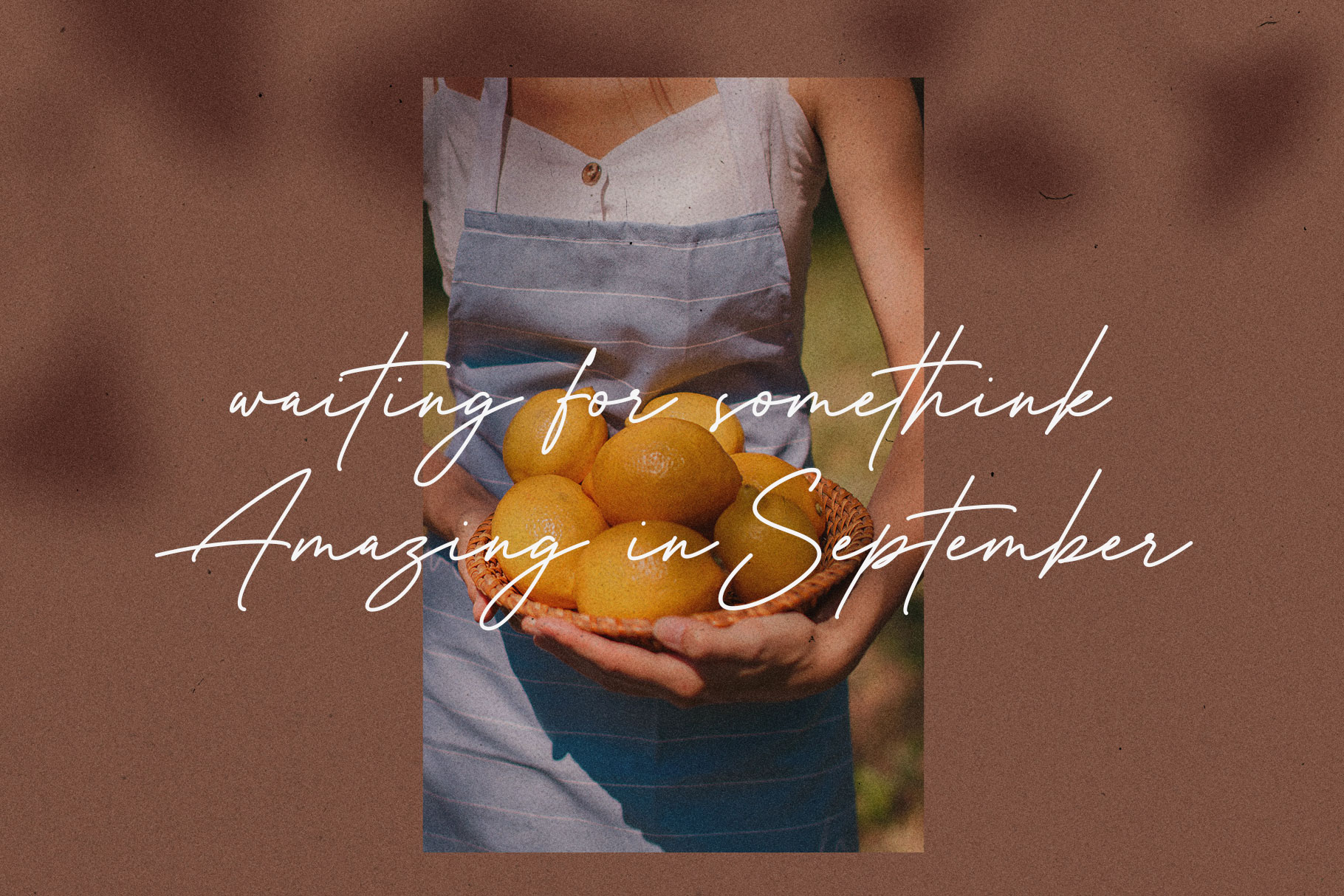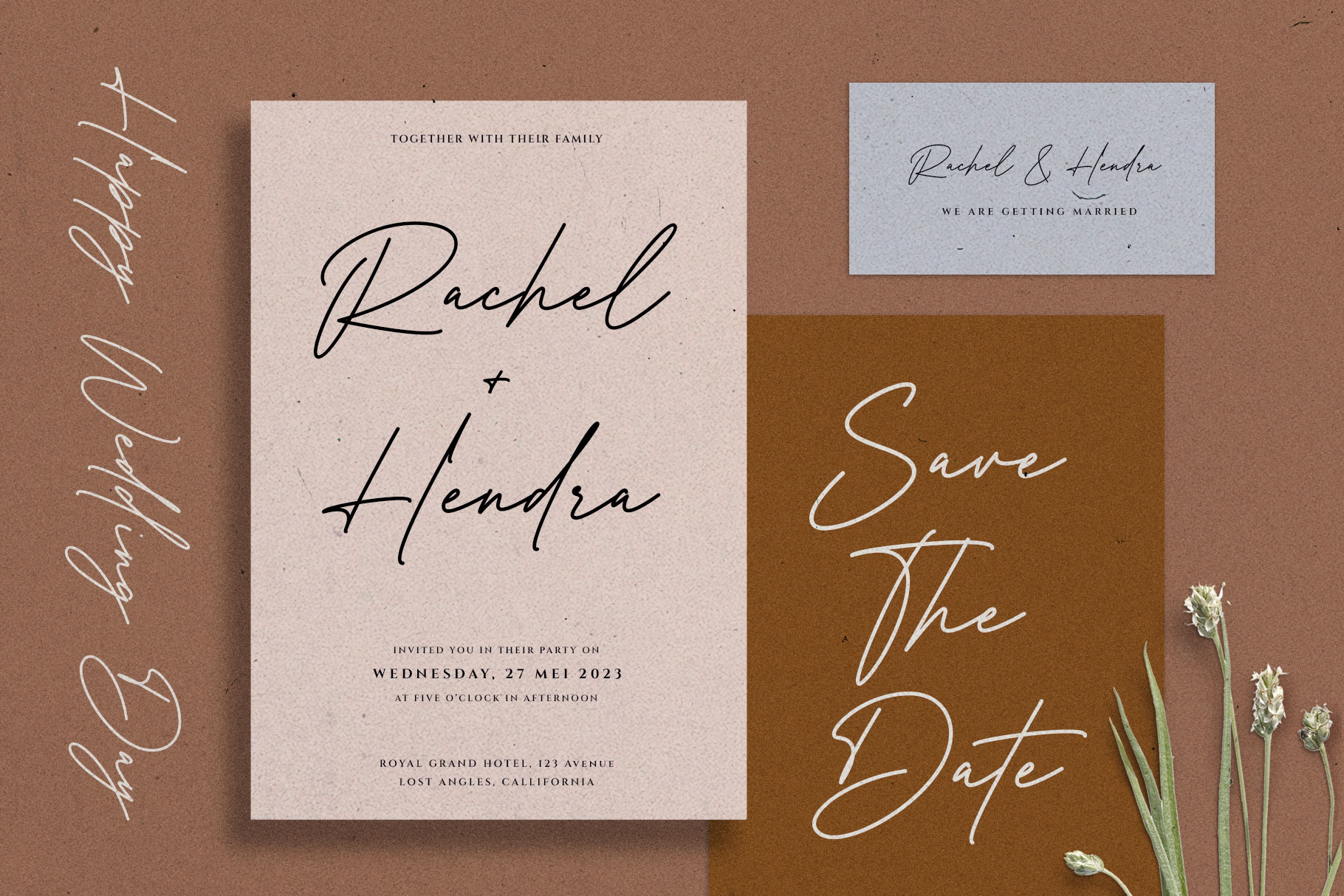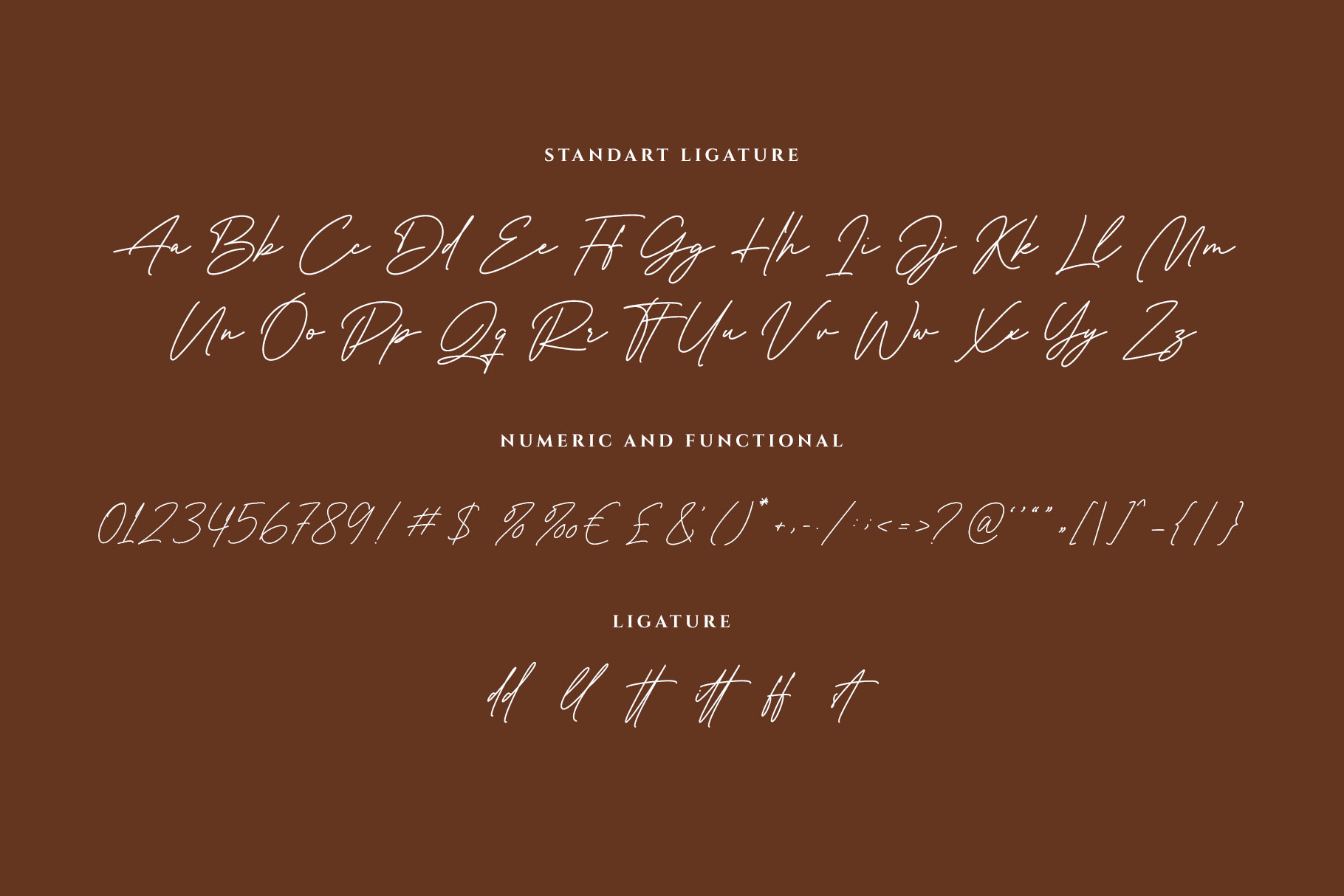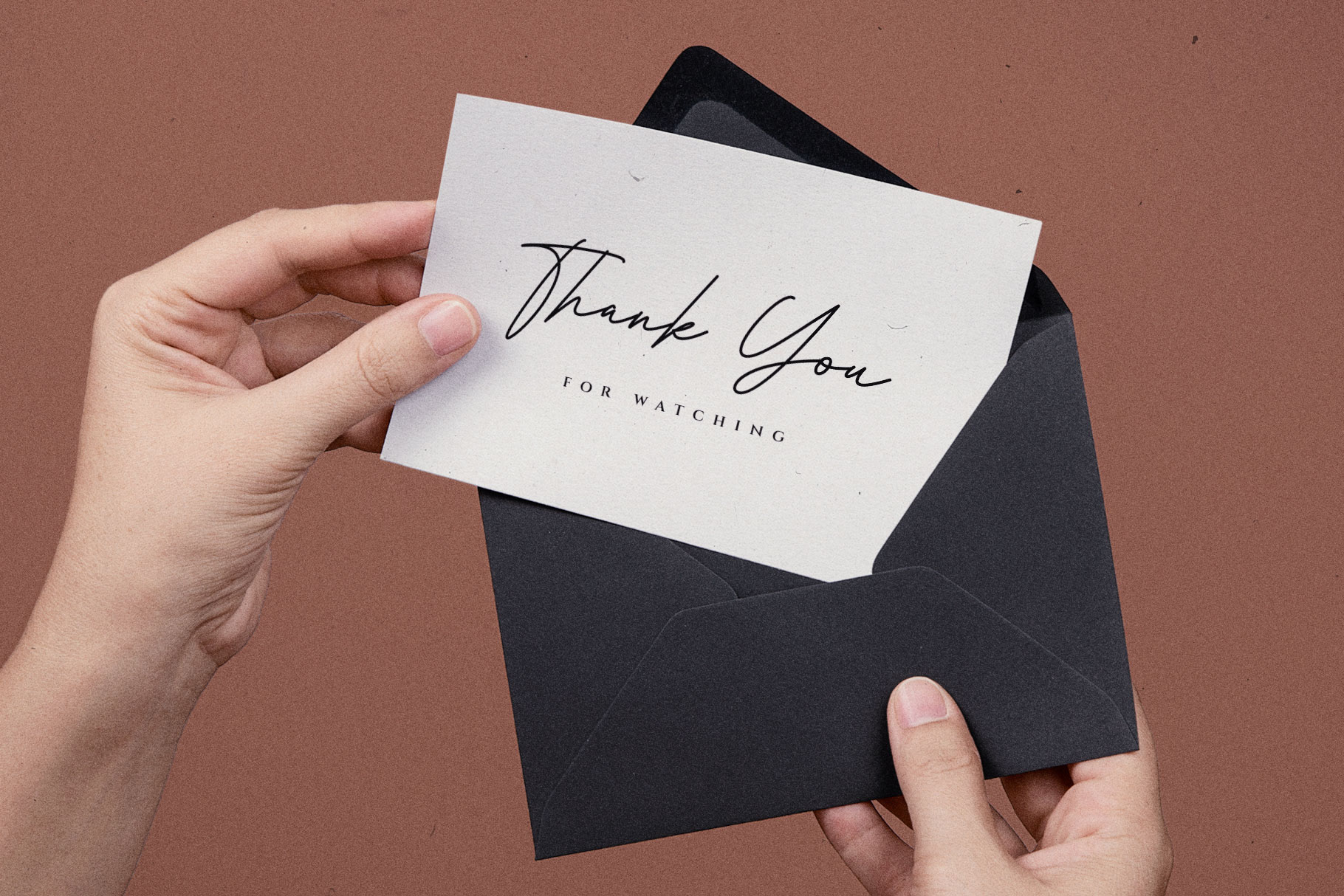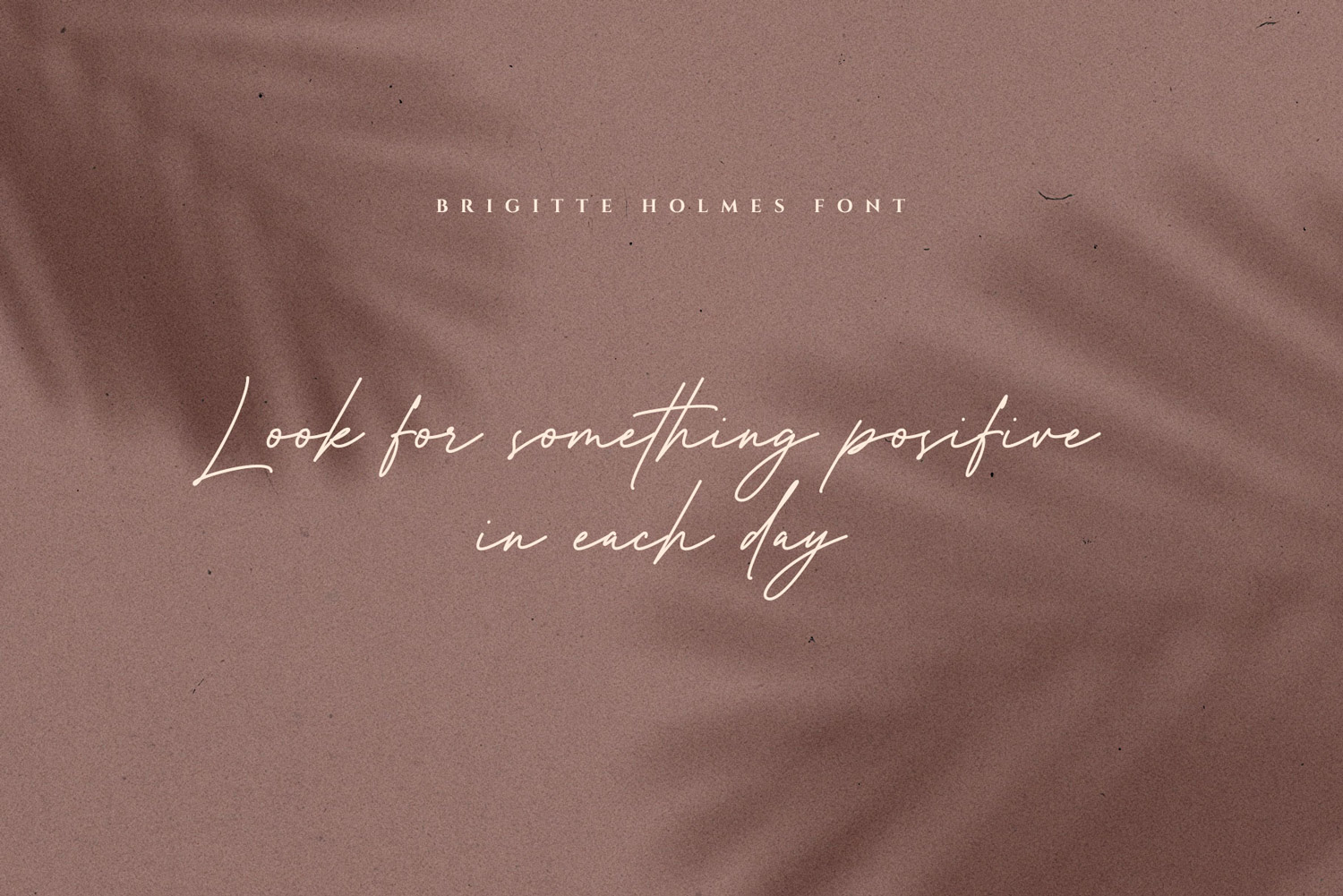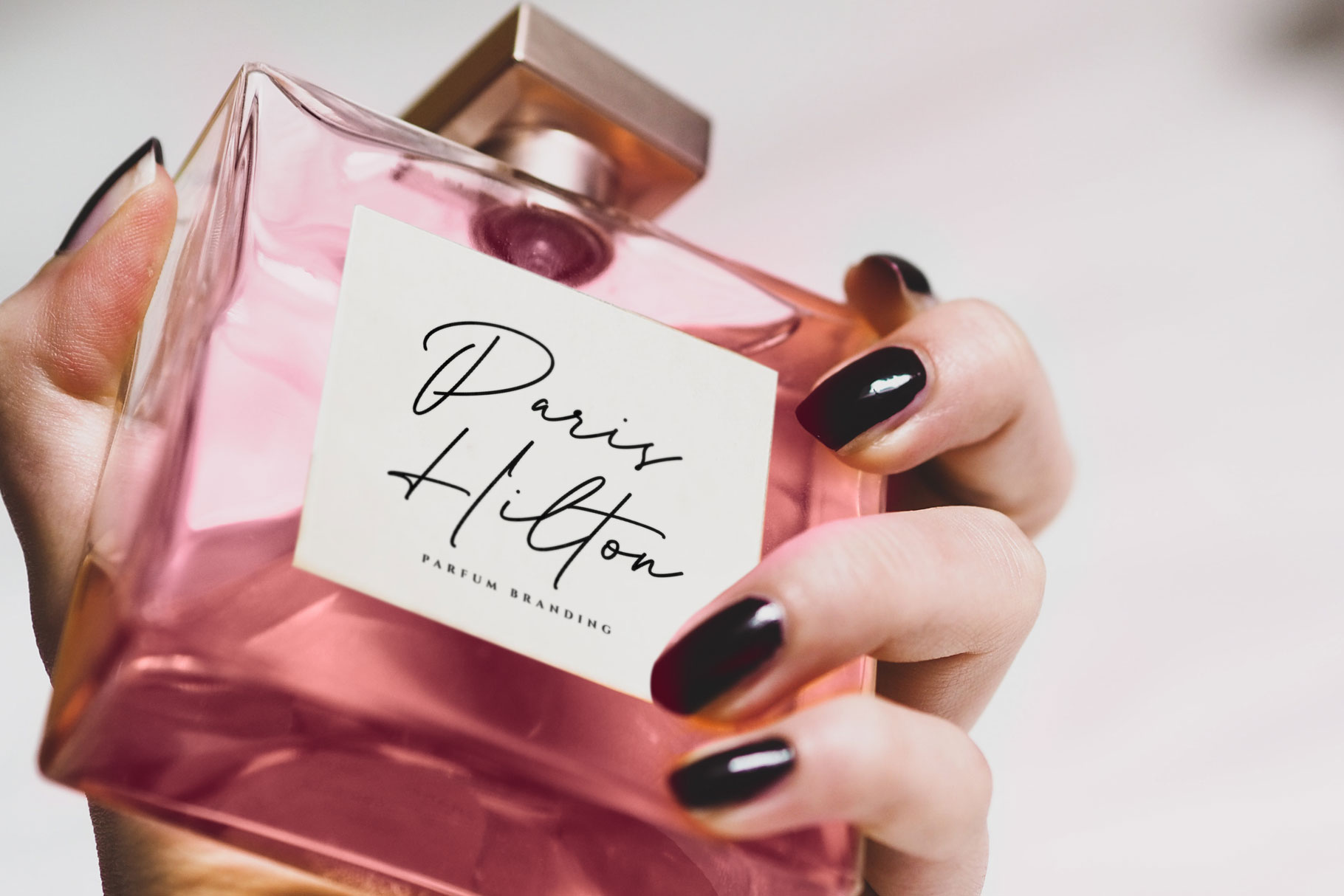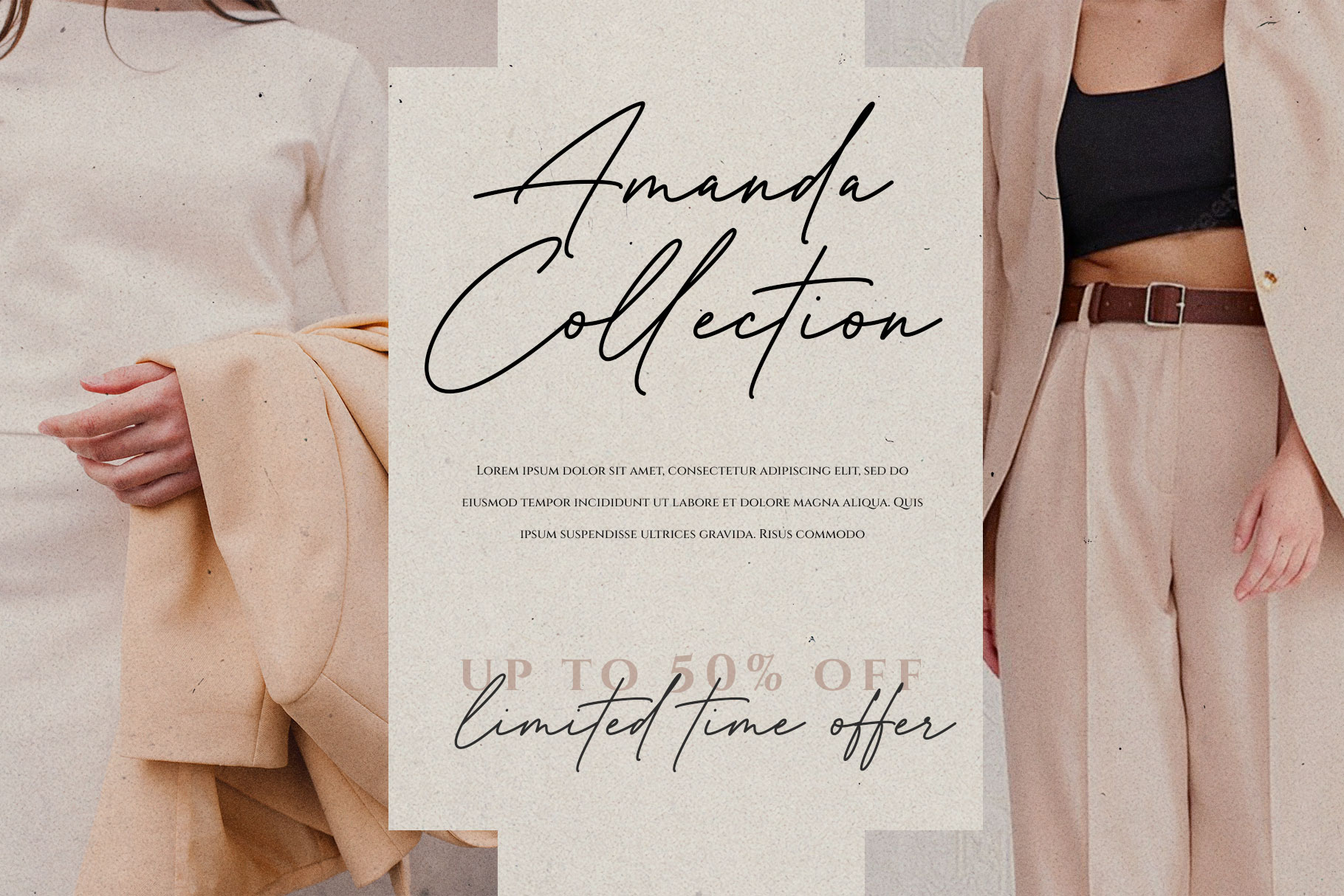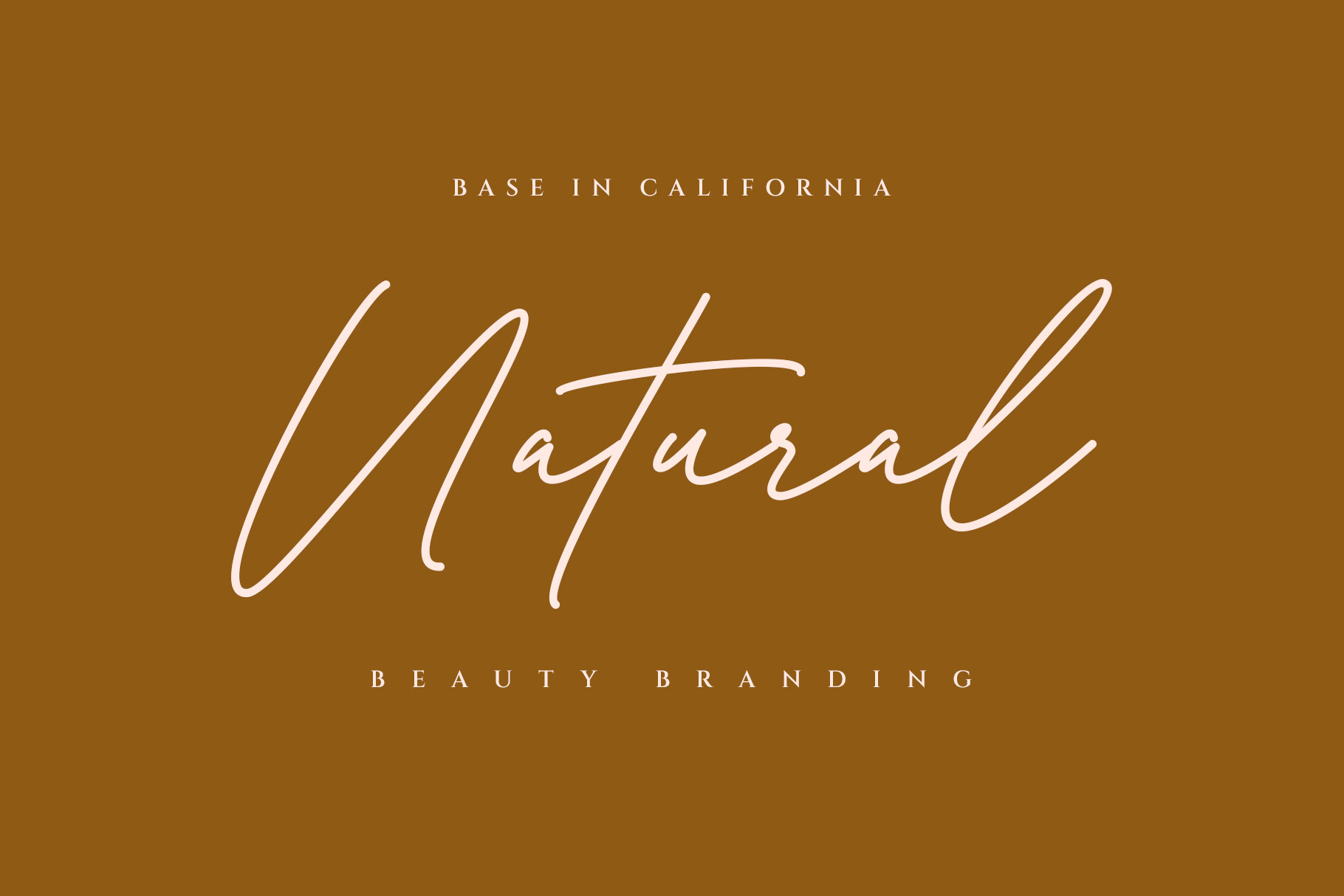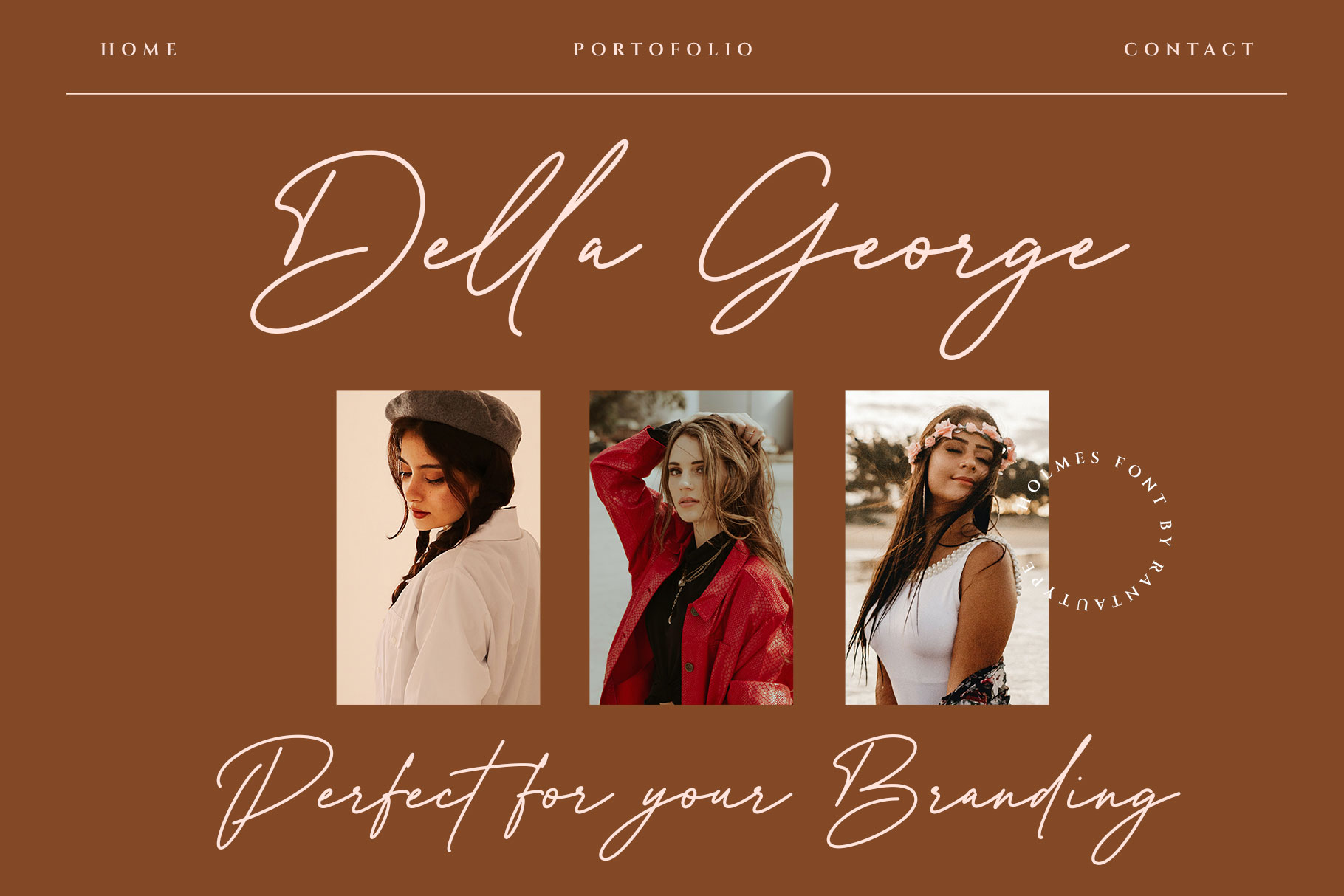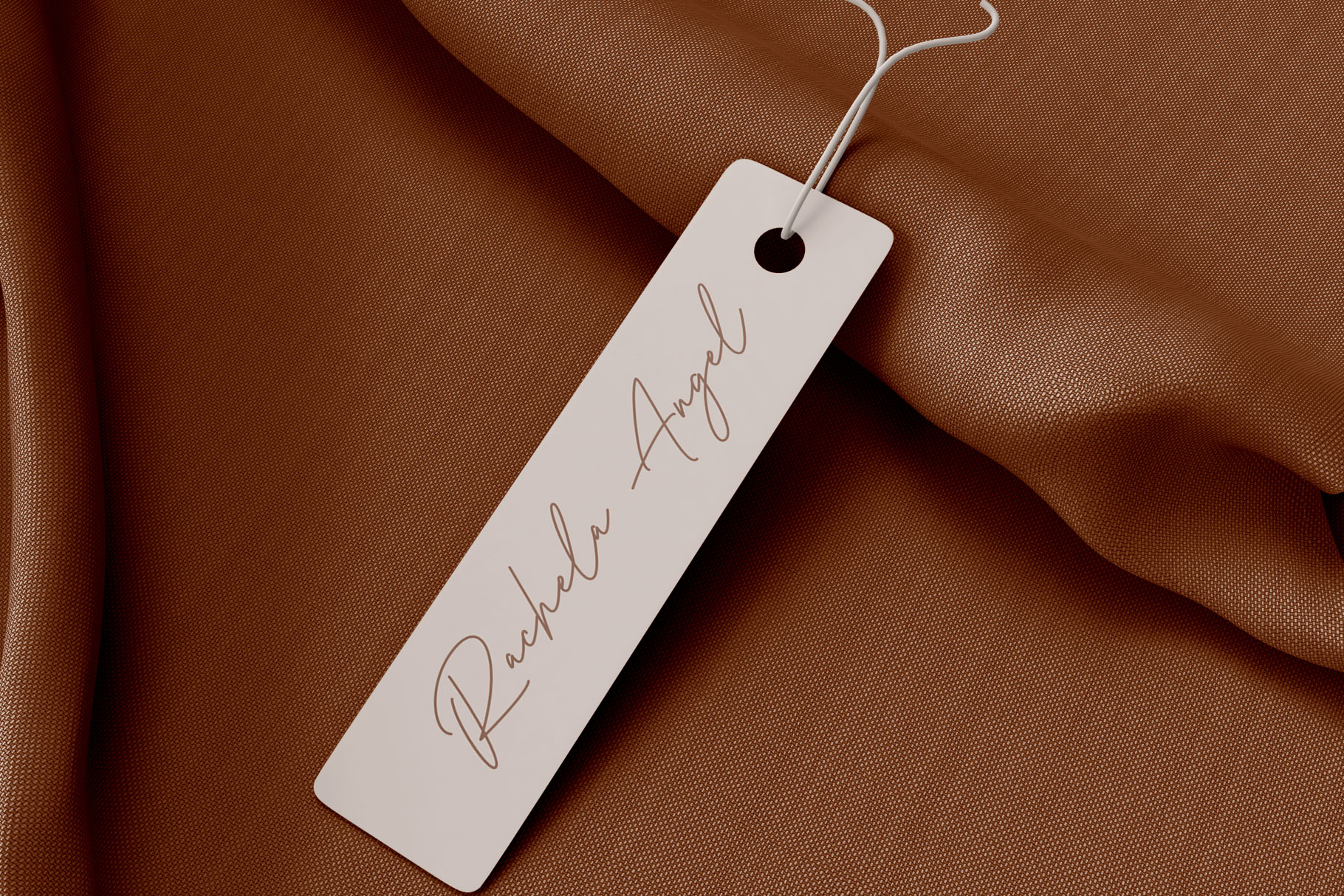
Brigitte Holmes Handwritten Font
Proudly present  stylish handwritten font “Brigitte Holmes” for you business.
Brigitte Holmes come with modern style font which can be interpreted professional. we keep this font looks modern, minimalist, elegant, readable, stylish, catchy and easy to use.
Brigitte Holmes is a beautiful choice for any creative endeavor, great choice for watermark on photography, branding, wedding event, signature or signature logo design, quotes, album cover, magazine, business card and many other design project. Brigitte Holmes here to make your work to high level!!!